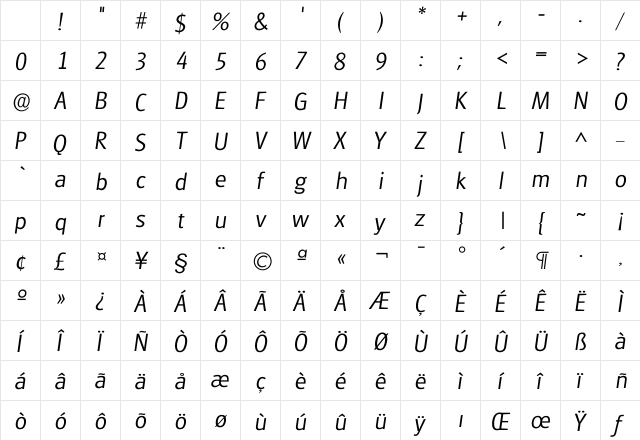
Complete Iglasgow Light glyph index. Displaying only characters natively supported by Iglasgow Light font.
Iglasgow is a composed and adaptable typeface that performs quietly and consistently across a wide range of design contexts. Its slender proportions lend an understated elegance to any composition.